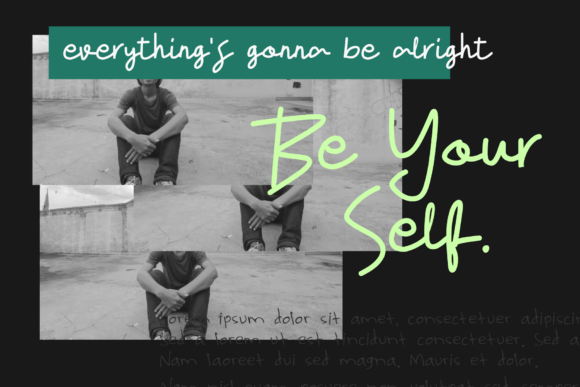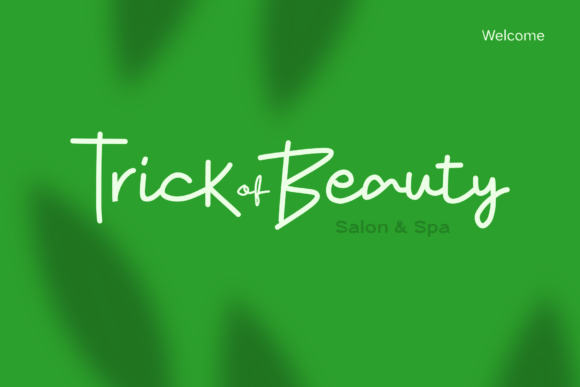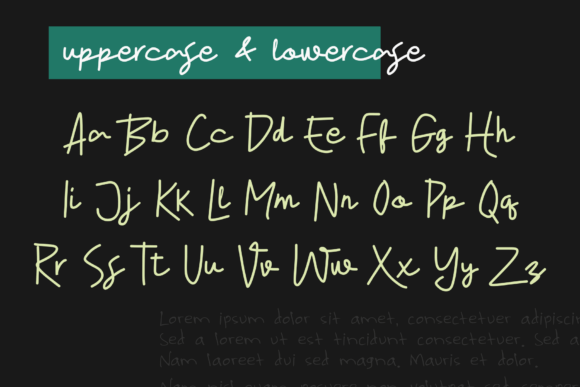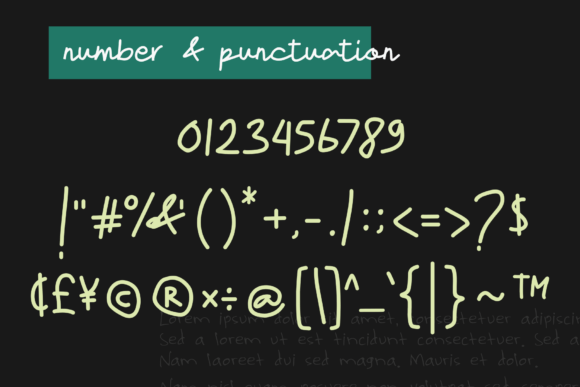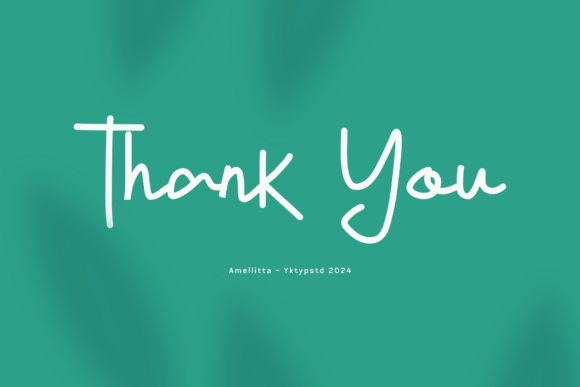
Introducing Amellitta: The Elegant Monoline Script Font for Creative Expression
Are you looking for a font that can elevate your creative projects to new heights? Look no further than Amellitta, a distinctively elegant monoline script font that is handwritten to perfection. This stunning font is designed to help you craft your message in a way that stands out, making it perfect for a wide range of applications, from sophisticated greetings cards and irresistible invitations to book and movie titles, fashion branding, and social media posts.
The Versatility of Amellitta
One of the key benefits of Amellitta is its versatility. This amazing font can be used in a variety of contexts, allowing you to bring your thoughts and ideas to life in a way that is both stylish and captivating. Whether you’re a designer, crafter, or simply someone who loves to express themselves creatively, Amellitta is the perfect tool for you.
Sophisticated Greetings Cards and Invitations
Amellitta is particularly well-suited for creating sophisticated greetings cards and irresistible invitations. Its elegant monoline script is perfect for formal events, such as weddings, anniversaries, and birthdays, and can help you make a stylish statement that will leave a lasting impression on your recipients. With Amellitta, you can create beautiful, one-of-a-kind cards and invitations that will set you apart from the crowd.
Book and Movie Titles
Amellitta is also an excellent choice for book and movie titles. Its distinctive and elegant script can help you generate buzz and create a sense of excitement around your project. Whether you’re a publisher, author, or filmmaker, Amellitta can help you create eye-catching titles that will grab the attention of your audience and leave a lasting impression.
Fashion Branding
In the world of fashion, style and elegance are everything. That’s why Amellitta is the perfect font for fashion branding. Its sophisticated monoline script can help you create a stylish and memorable brand identity that will set you apart from the competition. With Amellitta, you can create beautiful logos, labels, and packaging that will make your brand stand out.
Social Media Posts
Amellitta can also help you give your social media posts a captivating edge. Whether you’re a blogger, influencer, or simply someone who loves to share their thoughts and ideas on social media, Amellitta can help you create eye-catching posts that will grab the attention of your followers and leave a lasting impression. With Amellitta, you can add a touch of elegance and sophistication to your social media presence.
Unleashing the Potential of Amellitta
So how can you unleash the potential of Amellitta? The answer is simple: by experimenting with different applications and uses. Try using Amellitta to create vibrant quotes, stunning posters, and eye-catching flyers. Use it to transform ordinary projects into distinctive masterpieces. With Amellitta, the possibilities are endless, and the only limit is your imagination.
Tips for Using Amellitta
Here are a few tips for using Amellitta effectively:
- Experiment with different font sizes and styles to create visual interest and hierarchy.
- Use Amellitta in combination with other fonts to create a unique and eye-catching design.
- Don’t be afraid to get creative and try new things – Amellitta is a versatile font that can be used in many different ways.
| Author | yktypstd |
In conclusion, Amellitta is a distinctively elegant monoline script font that is perfect for creative expression. Its versatility, style, and elegance make it an excellent choice for a wide range of applications, from sophisticated greetings cards and irresistible invitations to book and movie titles, fashion branding, and social media posts. With Amellitta, you can craft your message in a way that stands out, and bring your thoughts and ideas to life in a way that is both stylish and captivating. So why wait? Unfold the magic of Amellitta in your creative journey today, and witness the transformation for yourself.